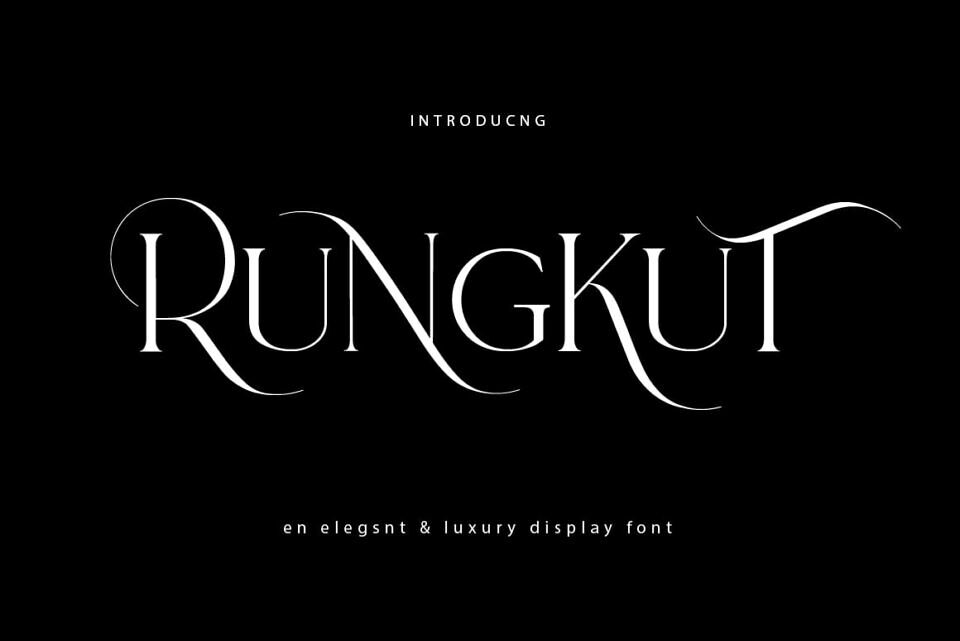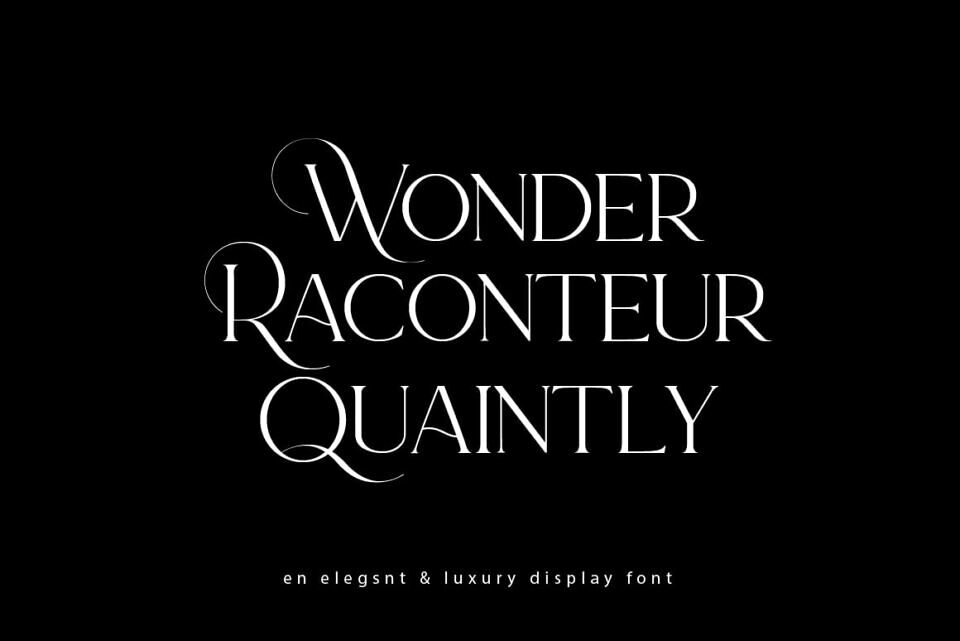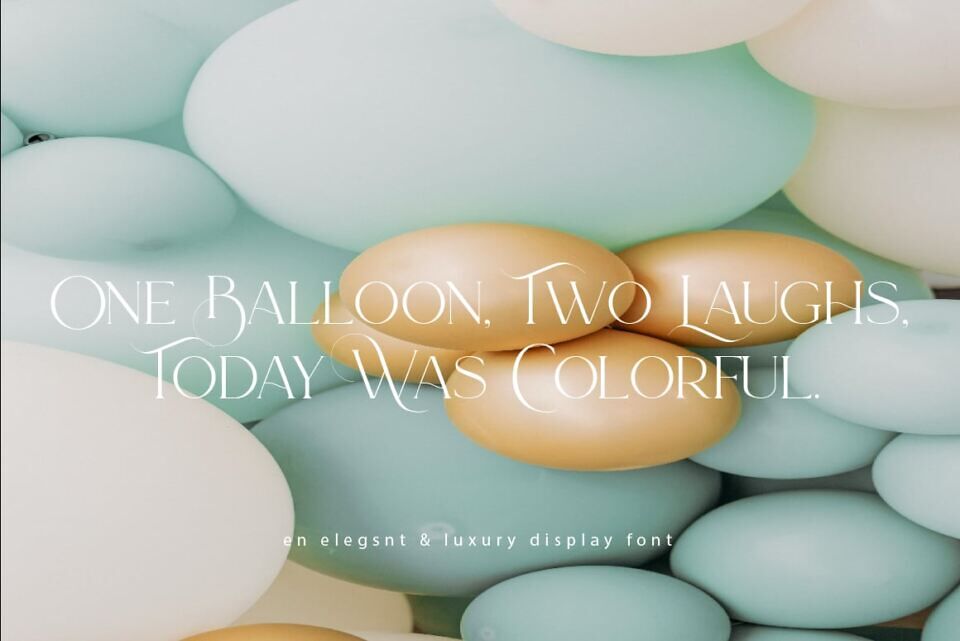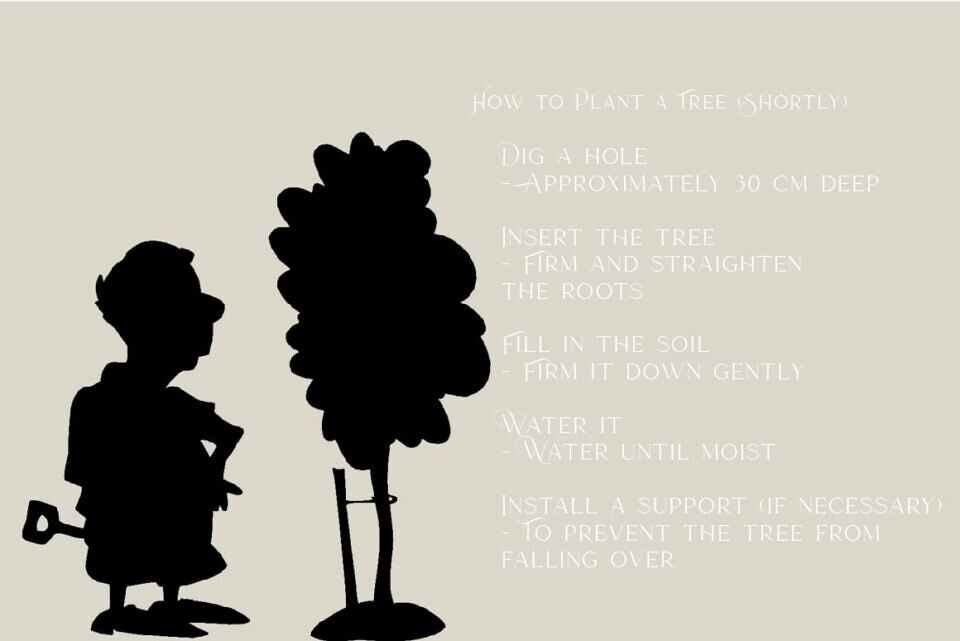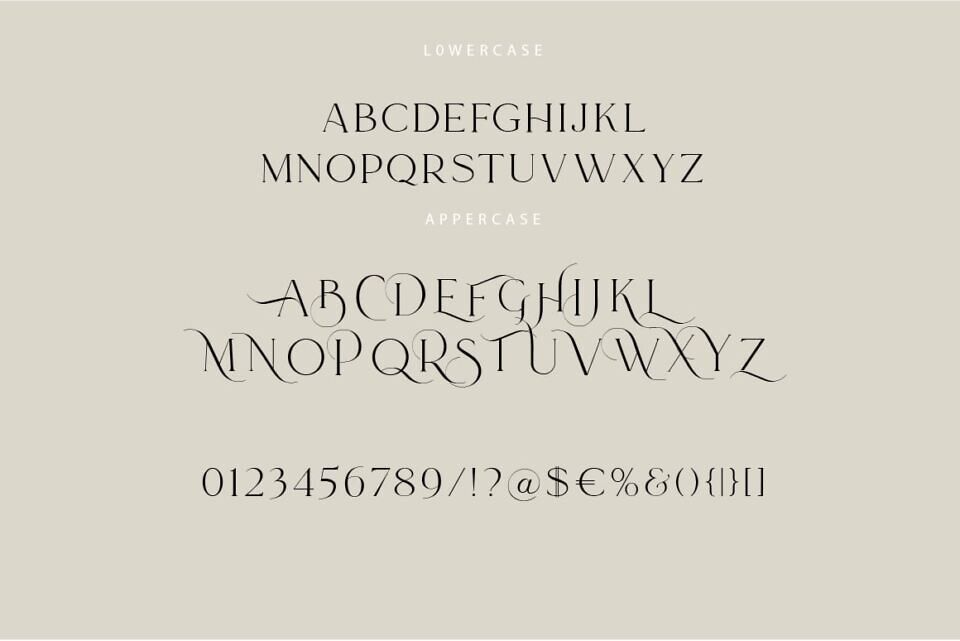
Rungkut Font
Rungkut is an elegant luxury display font by Metafontsy. It includes 378–381 glyphs, featuring uppercase, lowercase, numerals, punctuation, ligatures, alternate letters, multilingual support, and PUA‑encoding. This sophisticated, luxury‑oriented font suits wedding invites, fashion branding, high‑end logotypes, and elegant editorial layouts.